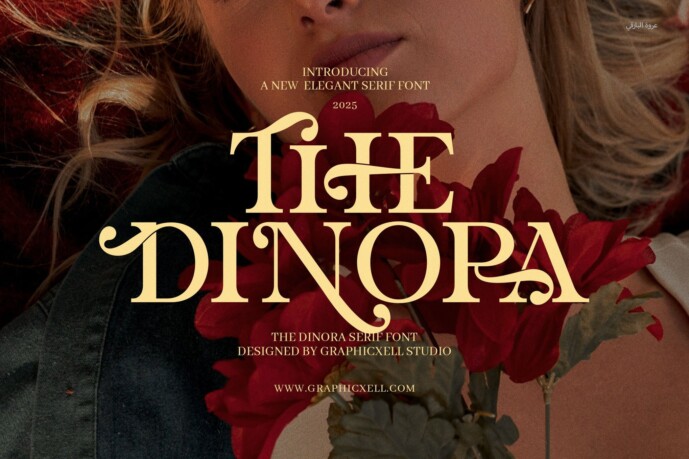
The Dinora Font
Step into a world of refined style with The Dinora Elegant Serif Font. Designed to deliver modern sophistication with a timeless twist, this font is the perfect addition to any creative toolkit. With its strong presence and graceful curves, Dinora is built for designers who want to make an impression—without losing clarity.
This font features proportional letterforms that are ideal for all types of branding. From sharp headlines to elegant body text, every character is crafted to create visual balance. Even better, functional ligatures add a polished, custom feel that makes your design stand out.